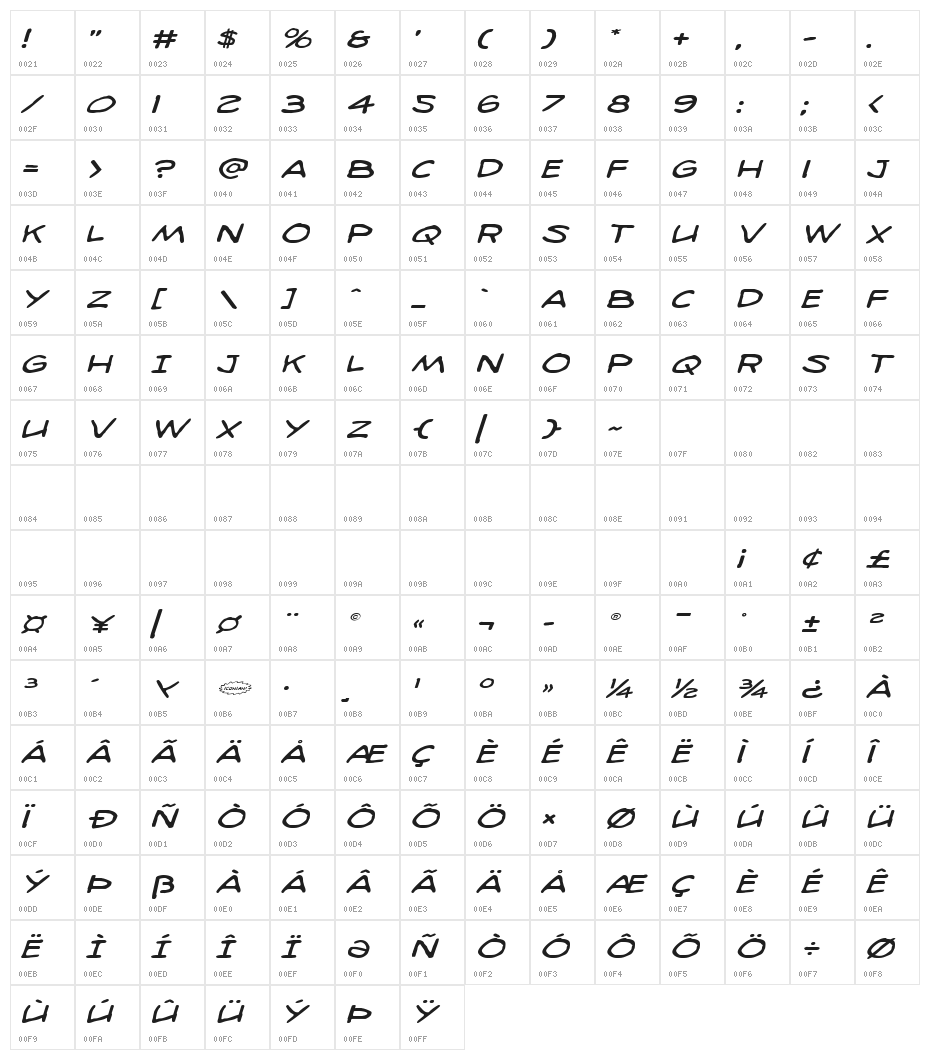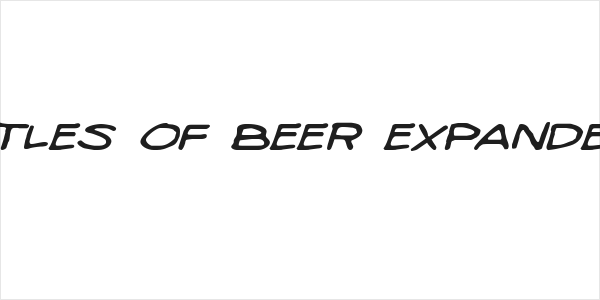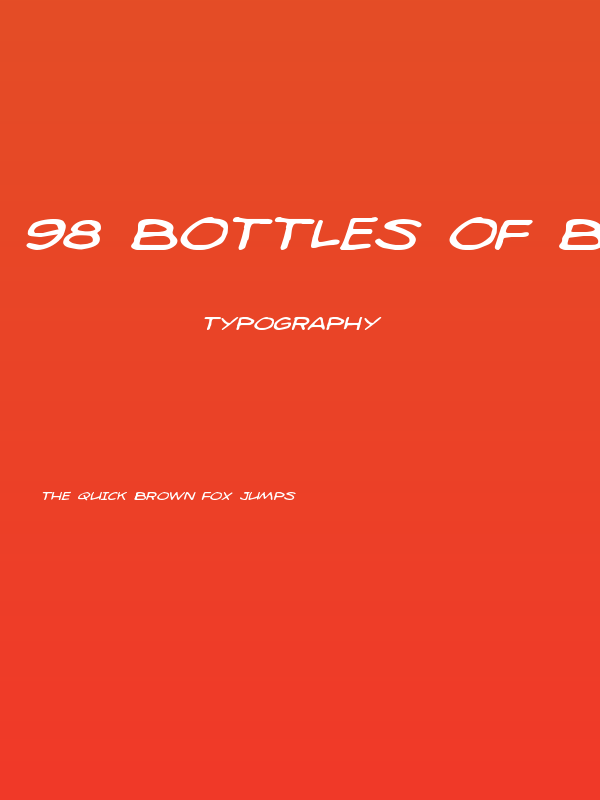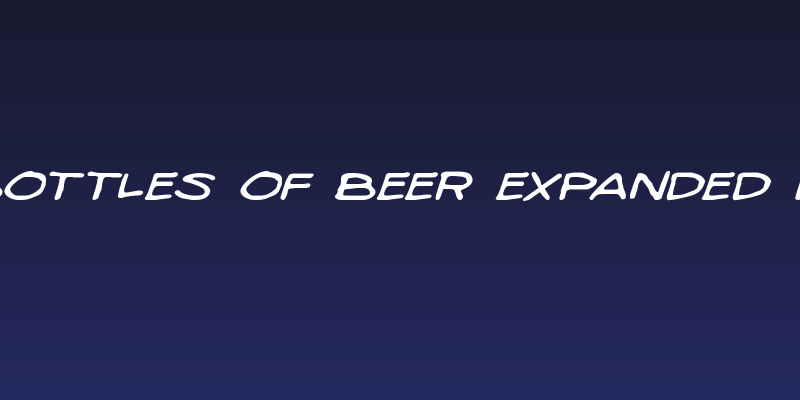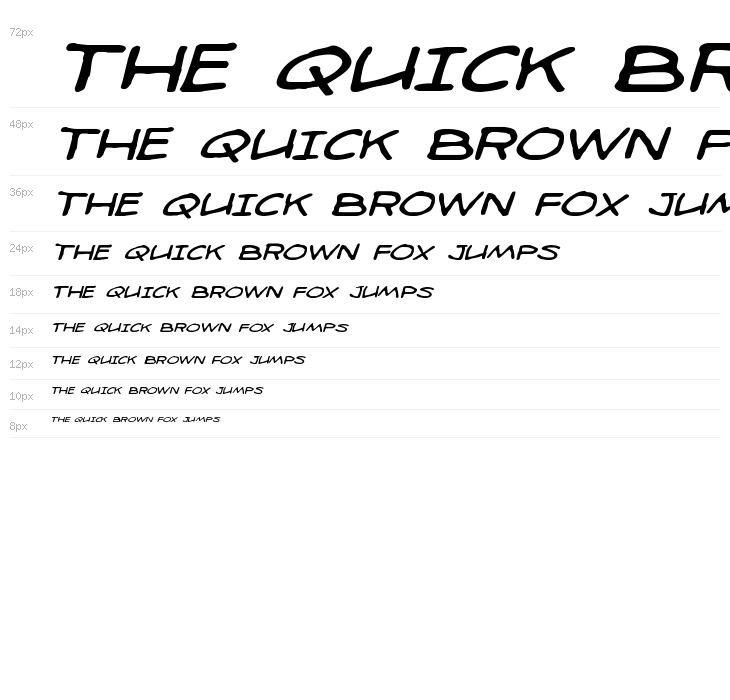
98 Bottles of Beer Expanded Italic Font
98 Bottles of Beer Expanded Italic Description
This font features a playful and dynamic style with a handwritten appearance. The characters are slightly slanted, giving an italicized effect that adds movement and energy. The strokes are bold and consistent, with rounded edges that soften the overall look. The font is expanded, providing ample spacing between characters, which enhances readability while maintaining its casual and informal vibe. It includes a full set of uppercase and lowercase letters, numerals, and a variety of special characters, making it versatile for different design needs.
| Proposed Projects | Ideal for projects that require a casual and friendly touch, such as children's books, greeting cards, playful branding, or social media graphics. |